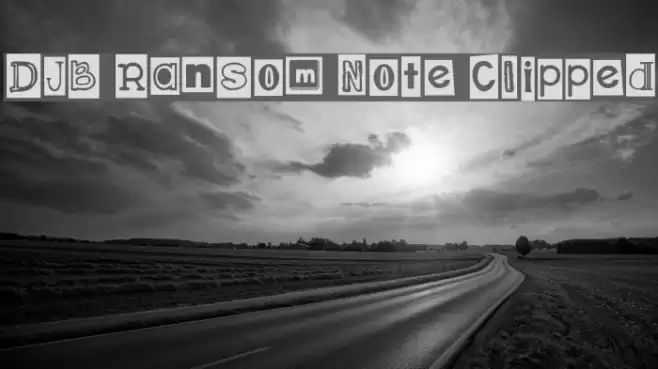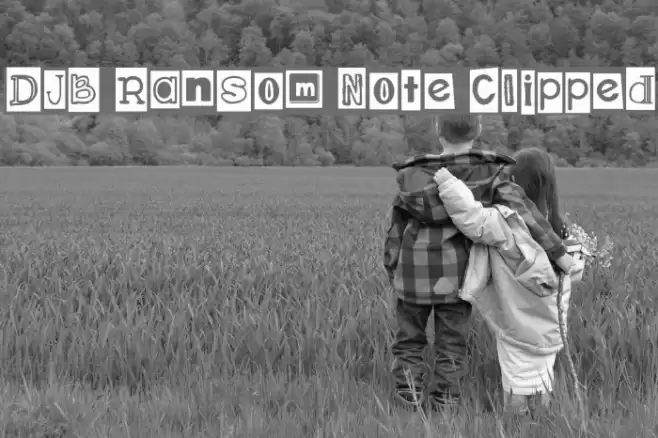
DJB Ransom Note Clipped Font
DJB Ransom Note Clipped Description
This font is a playful and eclectic mix of characters, each designed to resemble cut-out letters from magazines or newspapers, reminiscent of a classic ransom note style. The letters are presented in a variety of styles, including bold, outlined, and textured, with each character appearing on a distinct background. This creates a dynamic and visually engaging appearance. The font includes both uppercase and lowercase letters, numbers, and a selection of special characters. Its unique and varied design makes it ideal for projects that require a quirky and informal look.
| Proposed Projects | Perfect for creative projects such as posters, flyers, scrapbook designs, and themed invitations. |